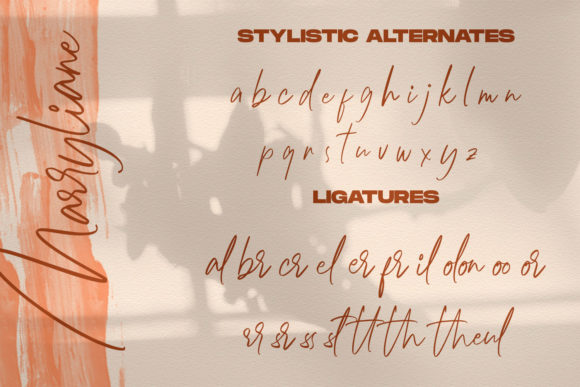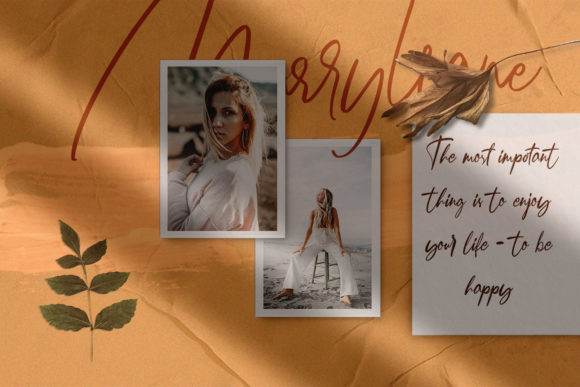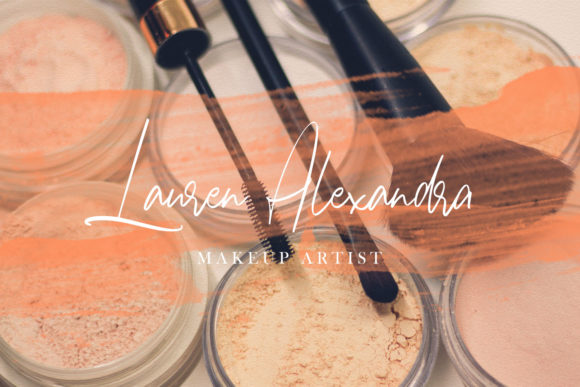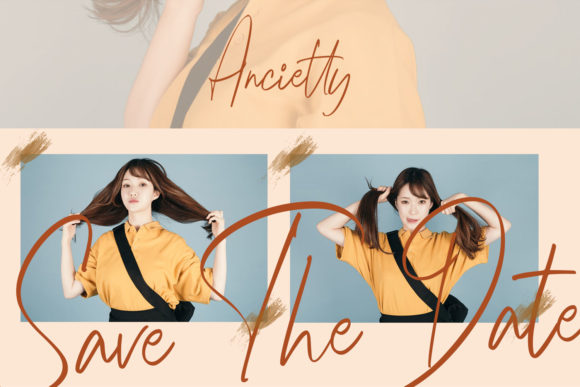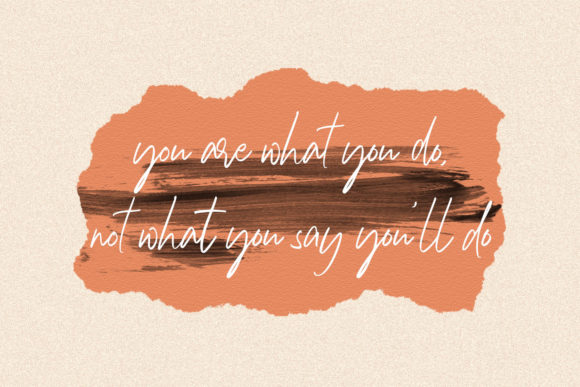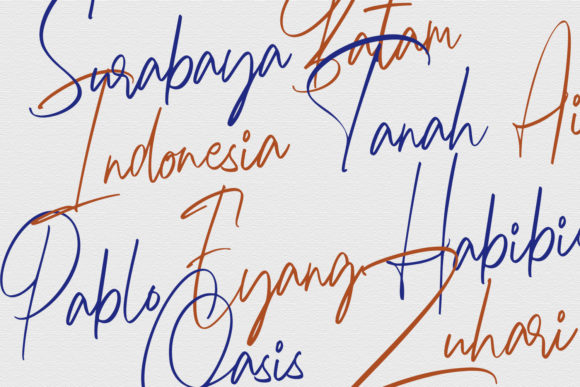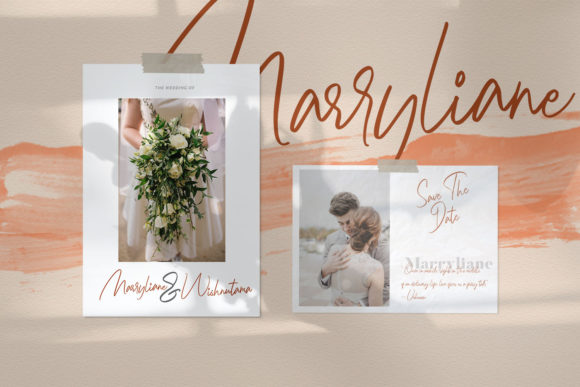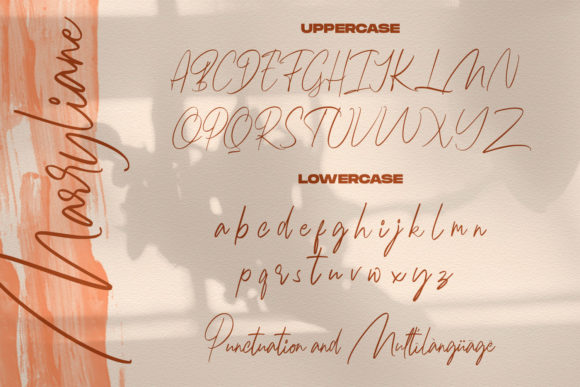
HomeScript FontsMarryliane Font Script Fonts Marryliane Font FacebookXPinterestWhatsApp Marryliane Font Poster 2 Marryliane Font Poster 3 Marryliane Font Poster 4 Marryliane Font Poster 5 Marryliane Font Poster 6 Marryliane Font Poster 7 Marryliane Font Poster 8 Marryliane Font Poster 9 Marryliane Font Poster 10 About Marryliane Font Marryliane is a modern signature font with flowing curves. It can add a romantic touch to any crafting project! DOWNLOAD ON CREATIVE FABRICAThis font is sold and delivered by Creative Fabrica. Font Canyon may earn a commission if you buy through this link. People also explored Winny Beatrice Font Ring Love Monogram Font Leniyha Font Anastesha Morales Font Paranomik Font Keista Heather Font Headquarters Font Saturday Garden Font Sweet Cheeks Font 292 0 TagsMarryliane Font Previous articleMellisya Signature FontNext articleDream Angel Font LEAVE A REPLY Cancel reply Comment: Please enter your comment! Name:* Please enter your name here Email:* You have entered an incorrect email address! Please enter your email address here Website: Save my name, email, and website in this browser for the next time I comment. Personal Use Free Unicorn Kids Personal Use Free Read more about this font Baby Mollusca Personal Use Free Read more about this font Carrolina Personal Use Free Read more about this font Awesome Snowflakes Font Personal Use Free Read more about this font BLOG Fonts That Capture the Spirit of New York City New York City is more than just a place—it’s an experience, a rhythm, a visual language... Using Fonts in Digital Marketing: Tips to Strengthen Your Brand Identity Best Fonts for T-Shirt Design – Top 2025 Picks Free vs Paid Fonts: Why Investing in Premium Fonts Is Worth It